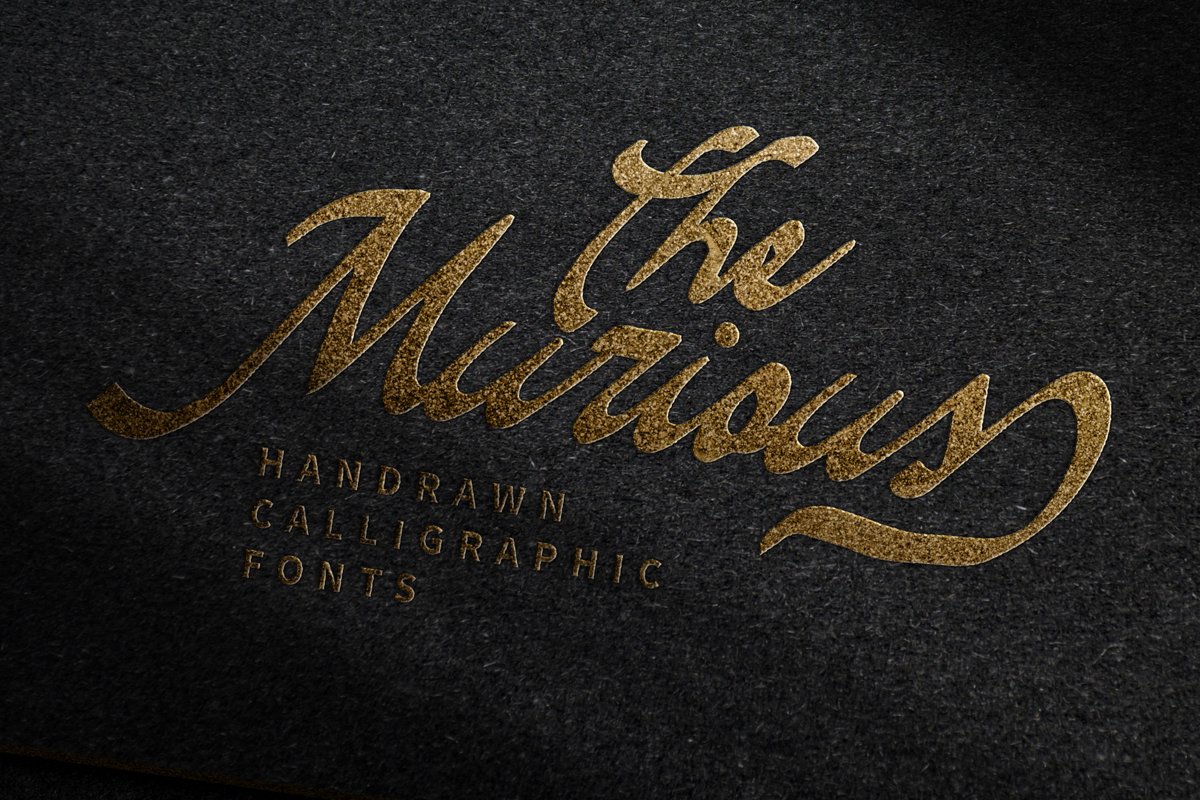
The Murious- Calligraphy Fonts that contain lowercase, uppercase, symbol, and also support multi language. There’s a lot ligatures in this font. This Font also comes with ligatures, alternates and many more. this font suitable for fashion, branding, catalog and other design what you want.
Murious